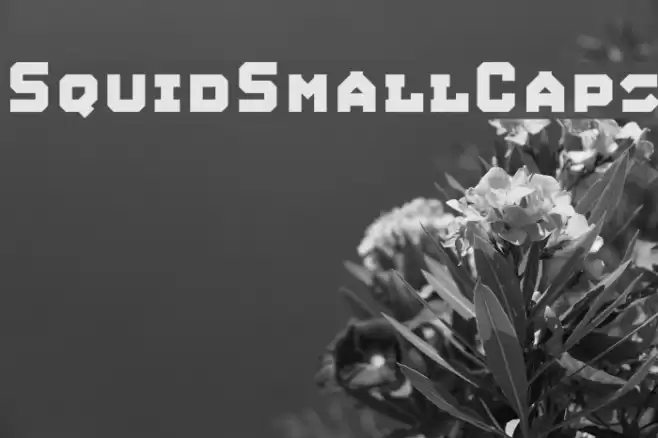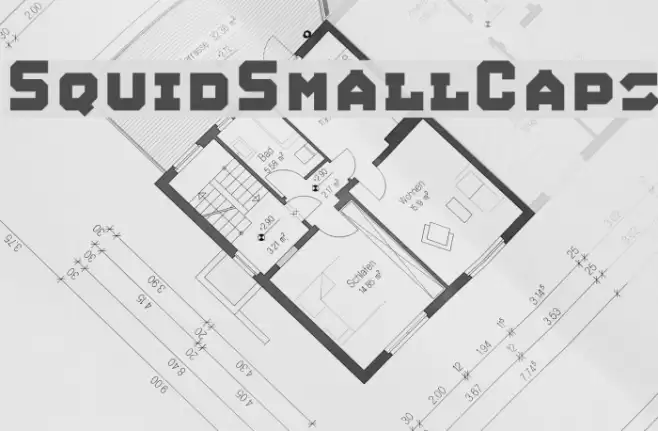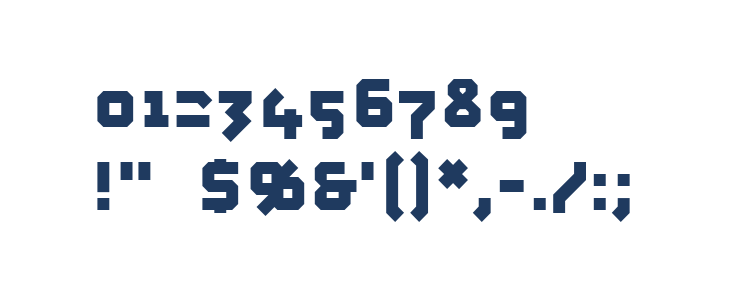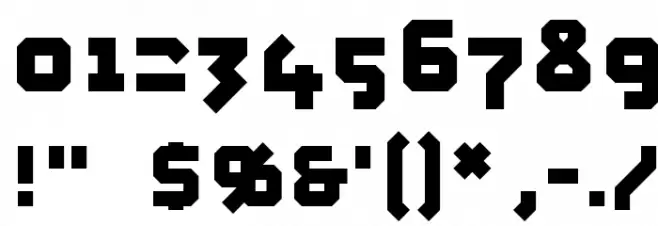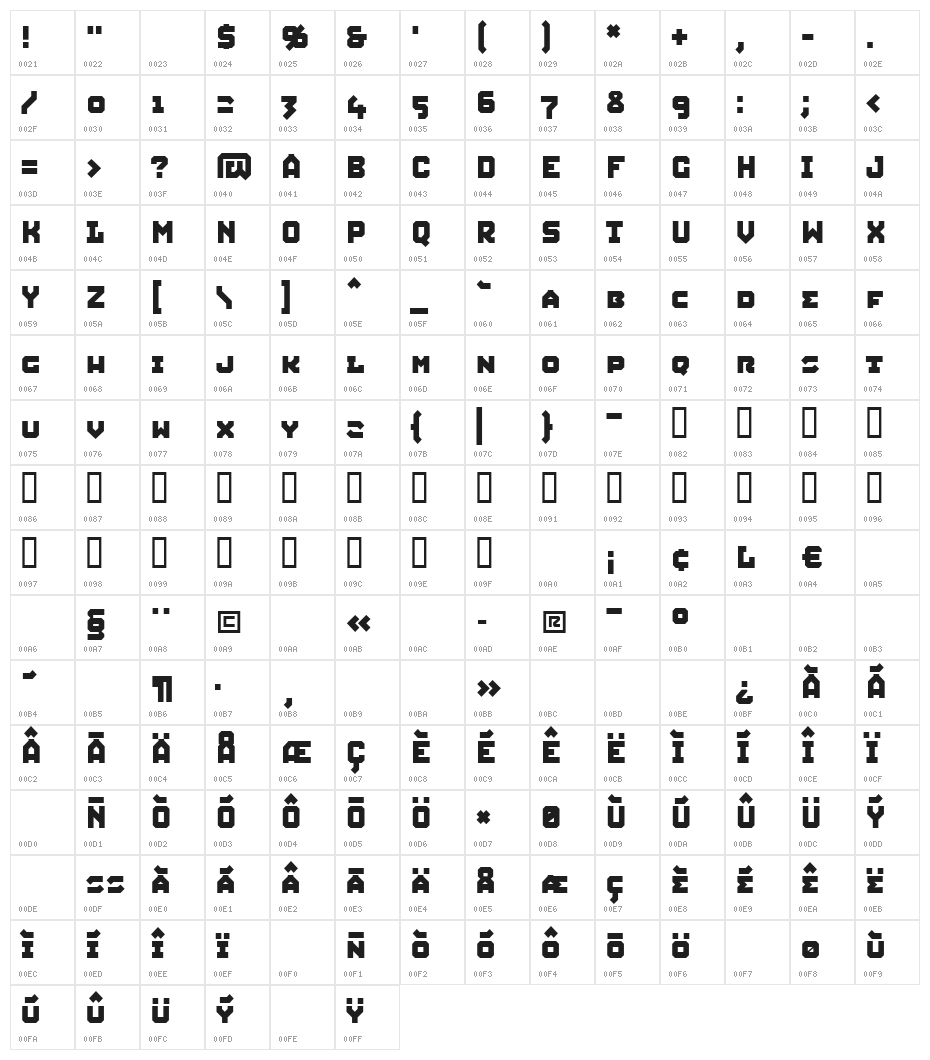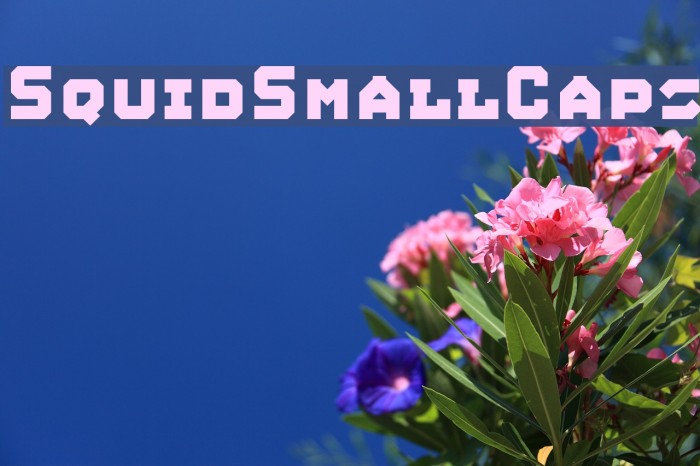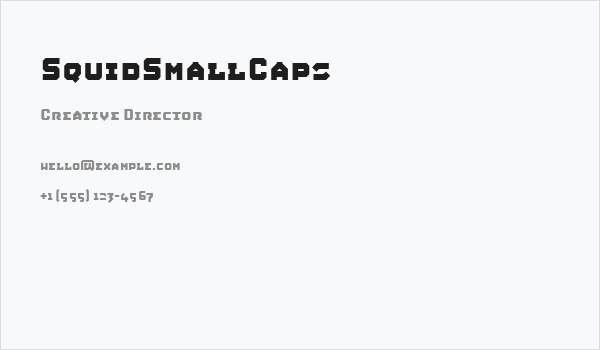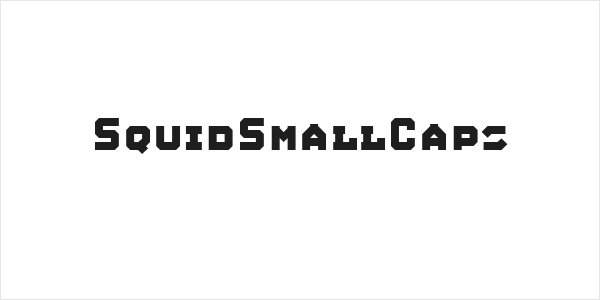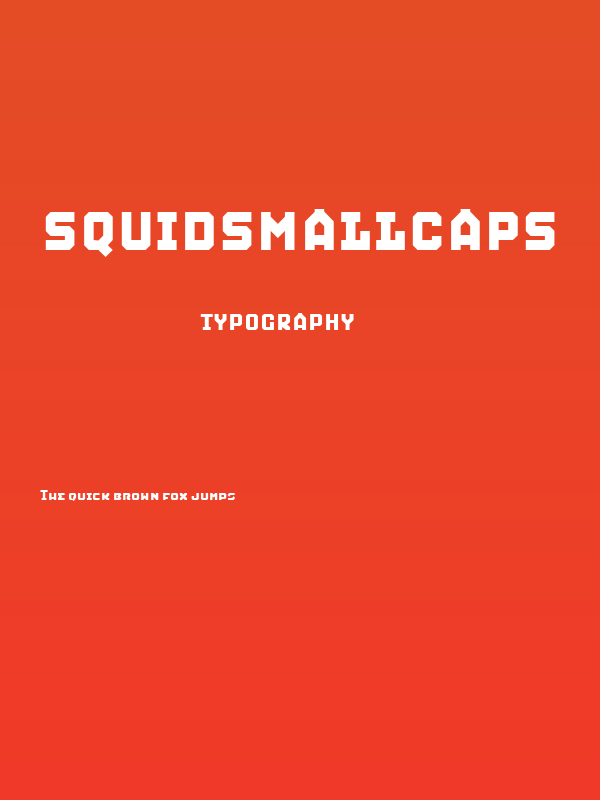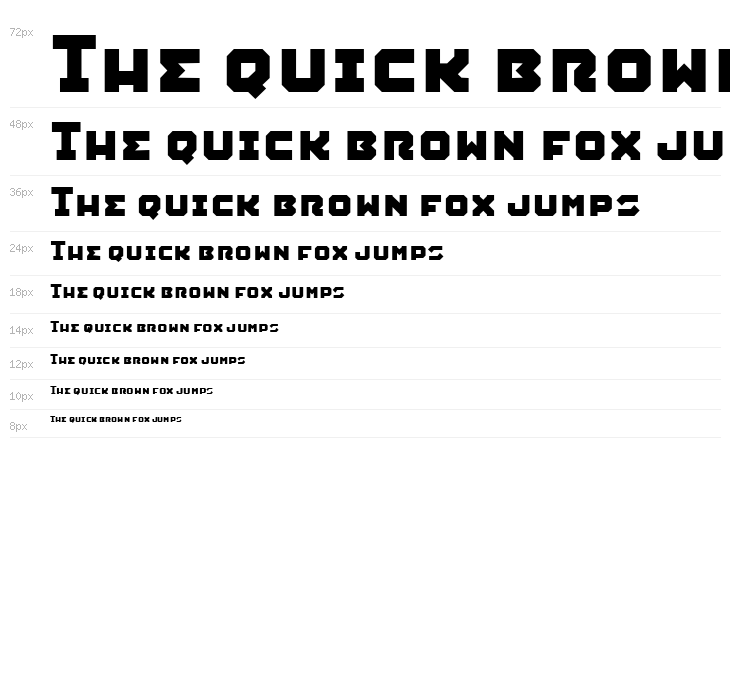
SquidSmallCaps Font
SquidSmallCaps Description
This font features a bold, geometric design with a distinctly modern and industrial feel. The characters are constructed with sharp angles and thick strokes, creating a strong visual impact. The uppercase and lowercase letters maintain a consistent style, with the lowercase appearing as small caps. The numerals and special characters follow the same robust design, ensuring uniformity across all glyphs. The font's blocky appearance and uniform stroke width give it a powerful presence, making it suitable for attention-grabbing applications.
A bold, geometric font with a modern, industrial style from Uncategorized fonts.
- Proposed Projects: Ideal for branding, posters, headlines, and any project requiring a strong, impactful typeface.